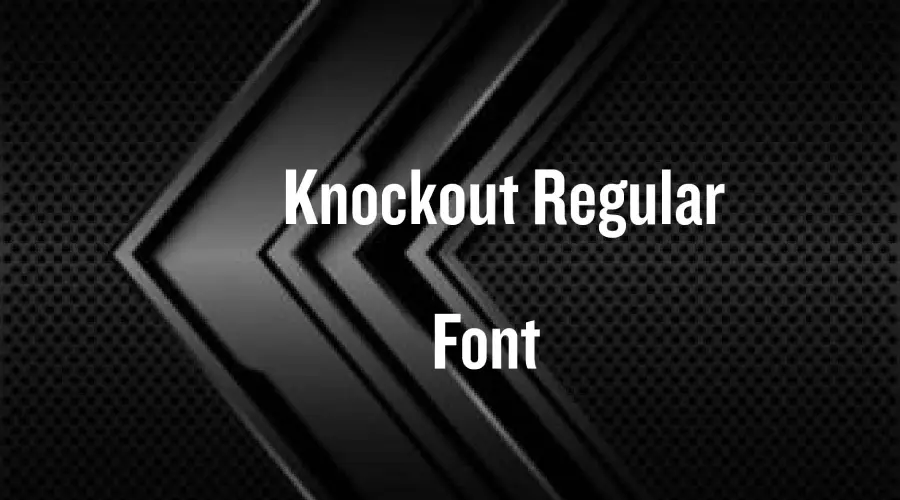
Knockout font is a sans-serif typeface that was designed by Jonathan Hoefler and Tobias Frere-Jones in 1994. It was inspired by the typography used in the late 1950s, especially in sports and entertainment posters. This font has a strong and bold texture that can give your designs a vintage vibe.
About Knockout Font
Knockout font has a strong and bold texture that can give your designs a vintage vibe.
Some of the features of the font are:
• It has an advanced character set for multi-language support.
• It has all-caps characters, numbers, punctuation, and symbols.
• It has four styles: light, regular, bold, and outline.
Where To Use This Font
You can use Knockout Font in a wide range of design contexts because it is a highly versatile typeface.. Its bold and impactful presence makes it particularly suitable for headlines, logos, posters, and other attention-grabbing design elements. Whether you’re creating a bold advertising campaign, striking packaging, or creating a standout website, this font can effectively communicate your message.
Who designed the Knockout font?
Ans: This font was designed by Jonathan Hoefler and Tobias Frere-Jones in 1994.
What is the main inspiration behind Knockout font?
Ans: This font was inspired by the typography used in the late 1950s, especially in sports and entertainment posters.
How many styles and weights does Knockout font have?
Ans: This font has 32 styles and weights, ranging from flyweight to sumo.